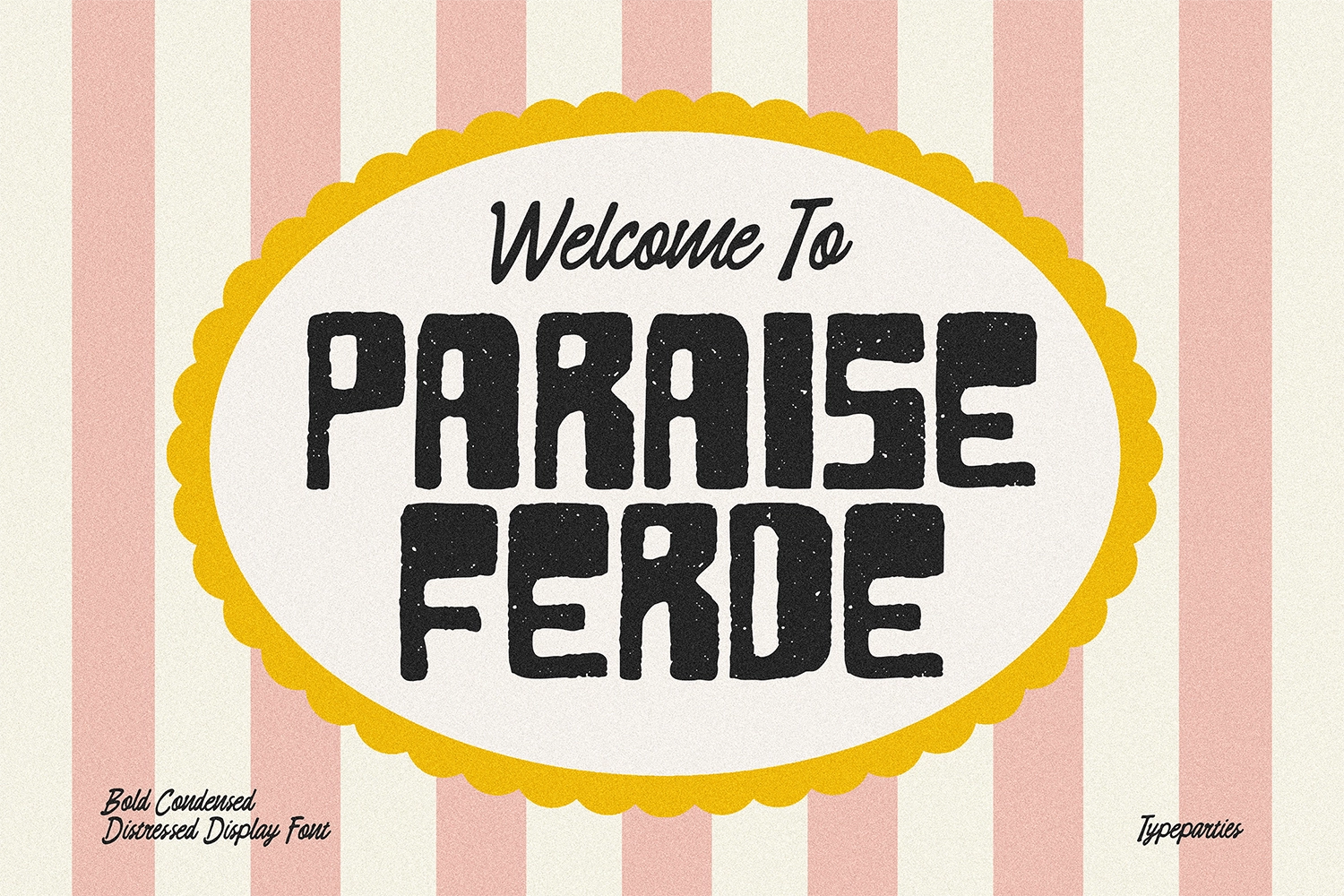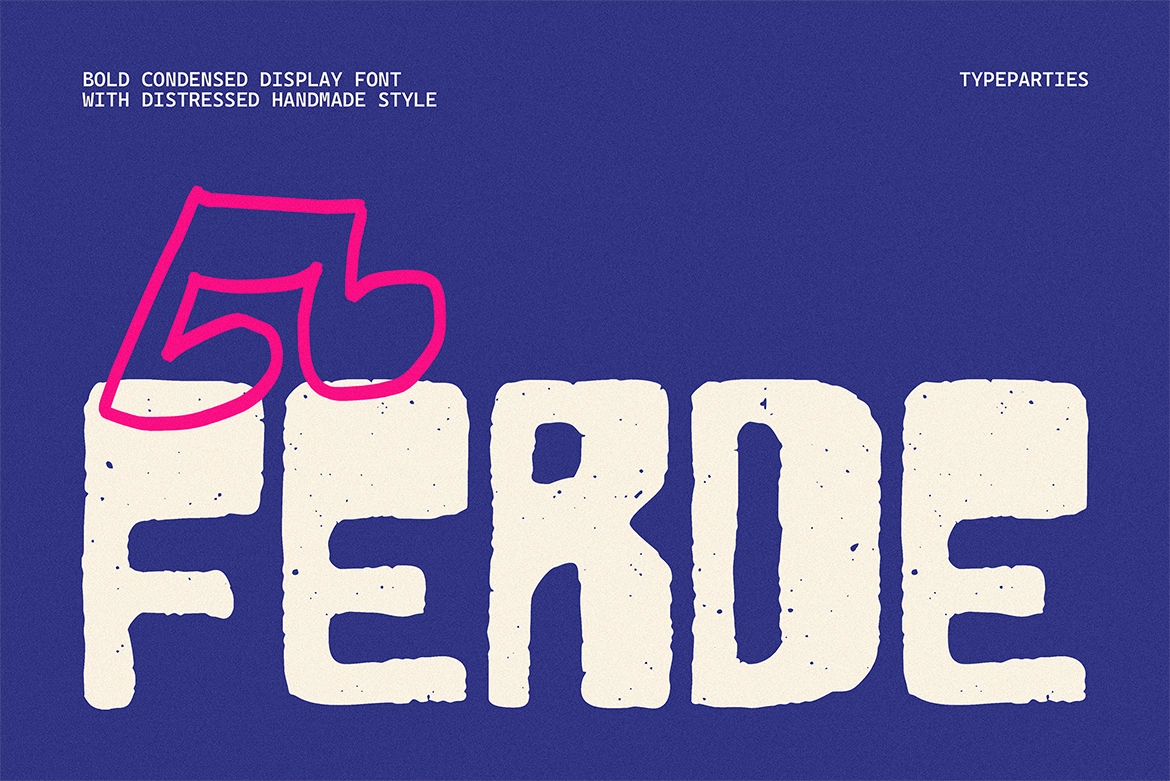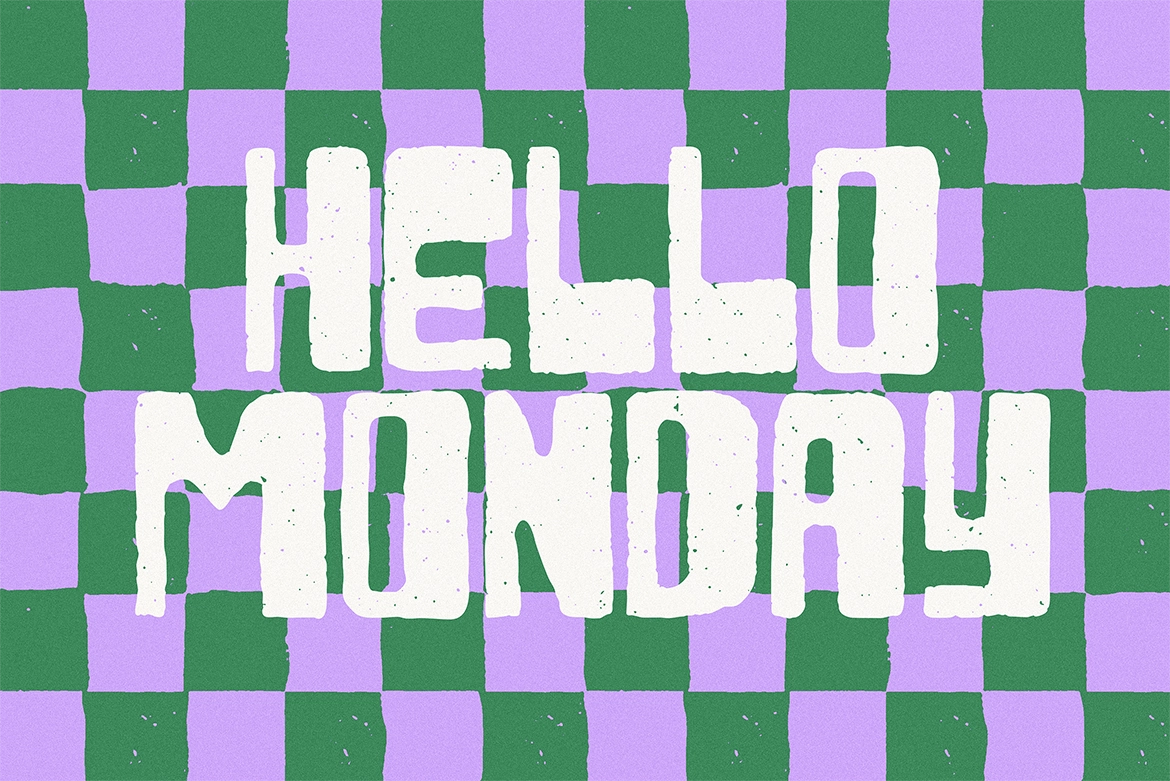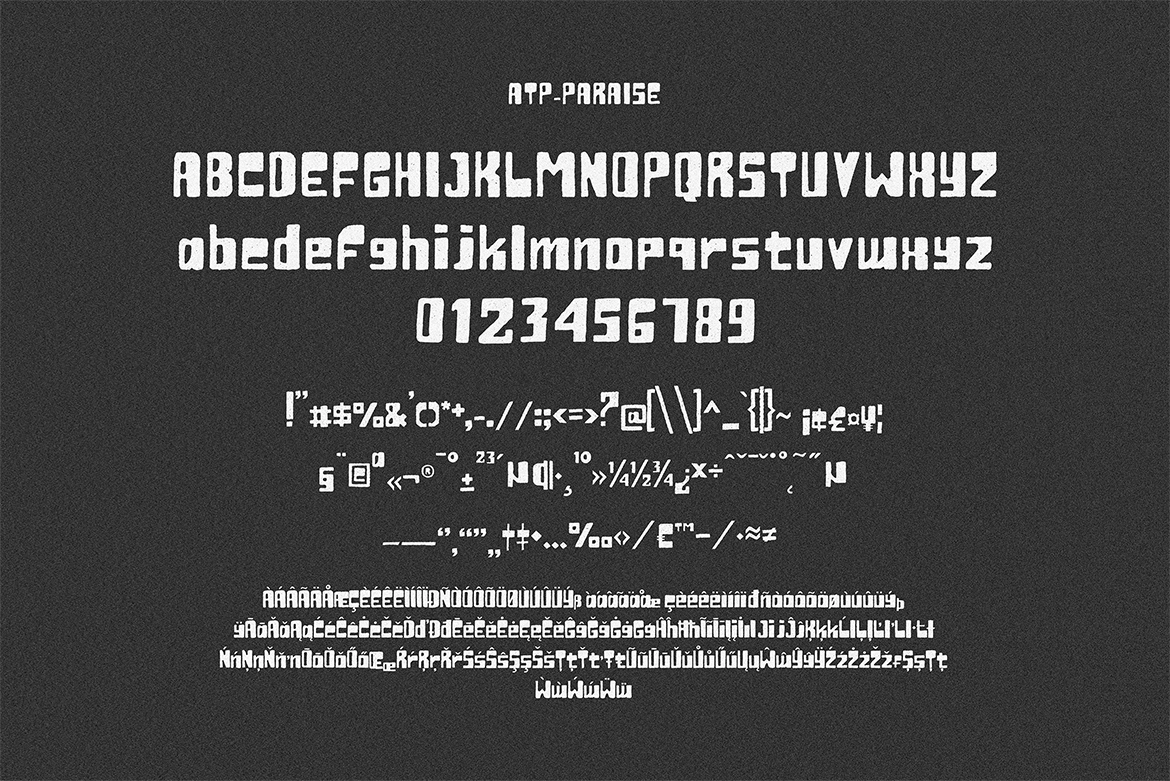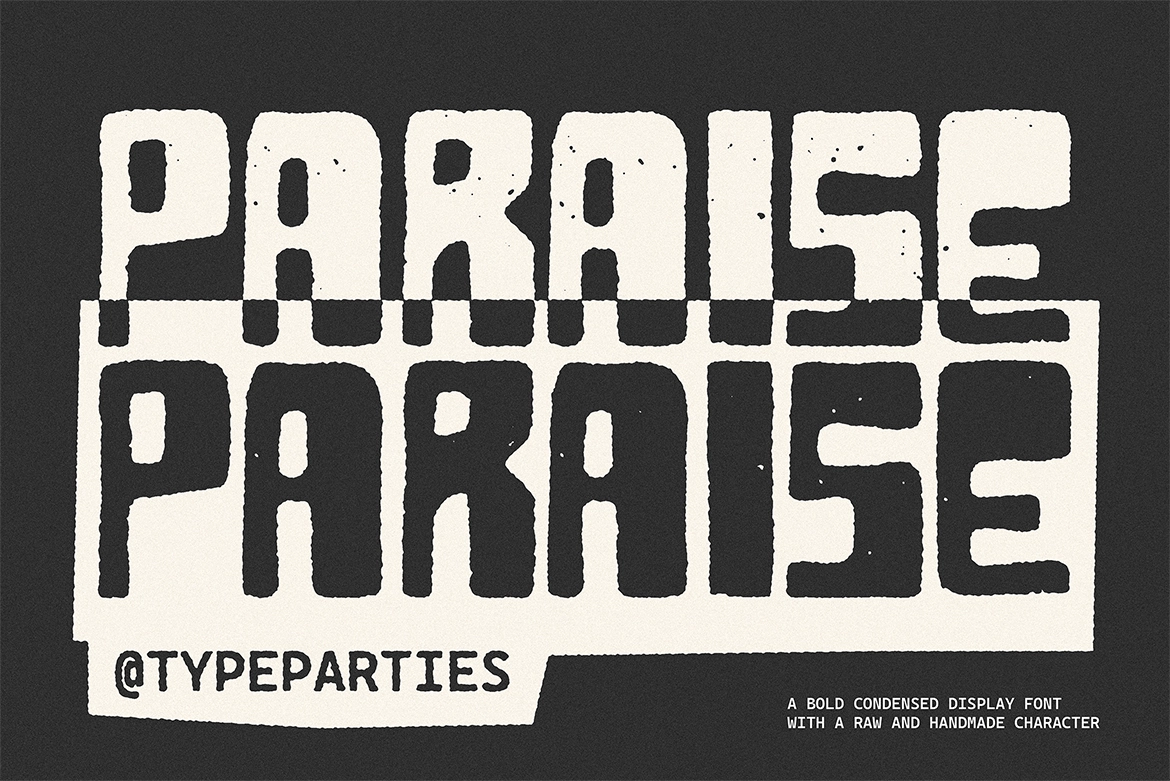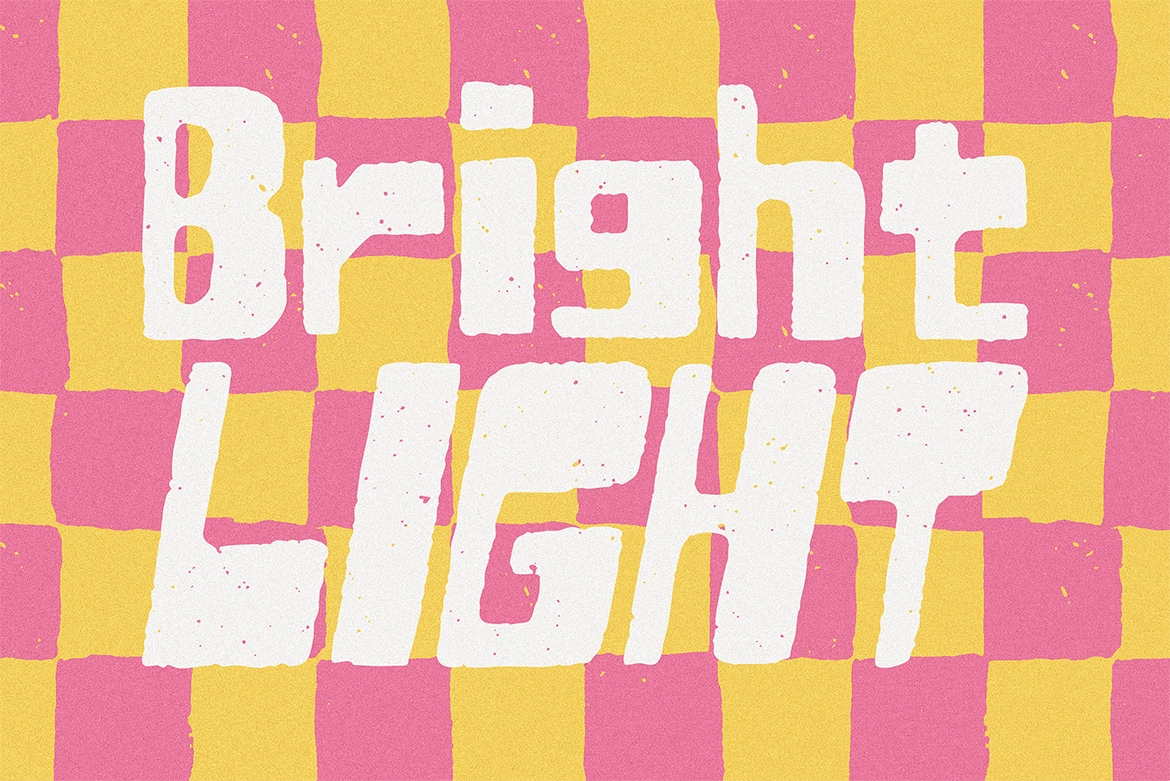
Paraise - Bold Condensed Font
Paraise - Bold Condensed Font is a handmade display typeface with a rugged, distressed texture and compact proportions that deliver raw power and vintage authenticity. Its blocky letterforms and gritty surface details create an organic, weathered look perfect for designs that demand attention and character.
Ideal for retro posters, craft beer labels, grunge album covers, festival graphics, rustic packaging, and bold social media headlines, Paraise combines strong visual impact with excellent readability in tight spaces. This condensed bold font adds an edgy, handmade feel to branding, merchandise, and promotional materials.
Perfect for designers seeking authentic vintage typography with modern versatility and punchy presence.